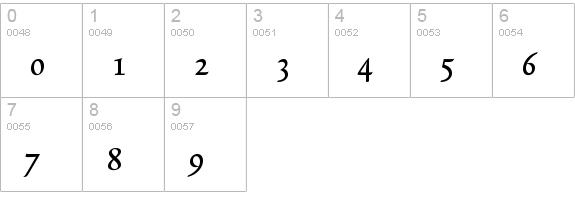
TriniteNo1-MediumCondensed font is a stunning and sophisticated typeface that is designed to make a bold statement. With its sleek and condensed style, this font exudes elegance and professionalism, making it perfect for a wide range of design projects. Featuring clean lines and a modern aesthetic, TriniteNo1-MediumCondensed font is ideal for headlines, titles, logos, and other eye-catching design elements. Its medium weight strikes the perfect balance between legibility and impact, ensuring that your message is delivered with clarity and style. One of the most remarkable aspects of TriniteNo1-MediumCondensed font is that it is available to download for free at FontsMarket.com. This means that you can effortlessly add this exceptional font to your design arsenal without breaking the bank. Whether you are a professional graphic designer or a hobbyist, having access to high-quality fonts like TriniteNo1-MediumCondensed font can elevate your work to new heights. The versatility of TriniteNo1-MediumCondensed font is another reason why it stands out among other typefaces. Its condensed nature allows for efficient use of space, making it an excellent choice for designs with limited room. From magazine layouts to website headers, TriniteNo1-MediumCondensed font will help you achieve a sleek and polished look. Furthermore, TriniteNo1-MediumCondensed font is highly readable even at smaller sizes, making it suitable for various mediums, including print and digital. Its well-crafted letterforms ensure that each character is distinct and easily recognizable, enhancing the overall readability of your text. In conclusion, TriniteNo1-MediumCondensed font is a free and versatile typeface that combines elegance, professionalism, and readability. Its sleek and condensed design makes it perfect for a wide range of design projects, and its availability for free download at FontsMarket.com makes it accessible to all. Elevate your designs and make a lasting impression with TriniteNo1-MediumCondensed font.